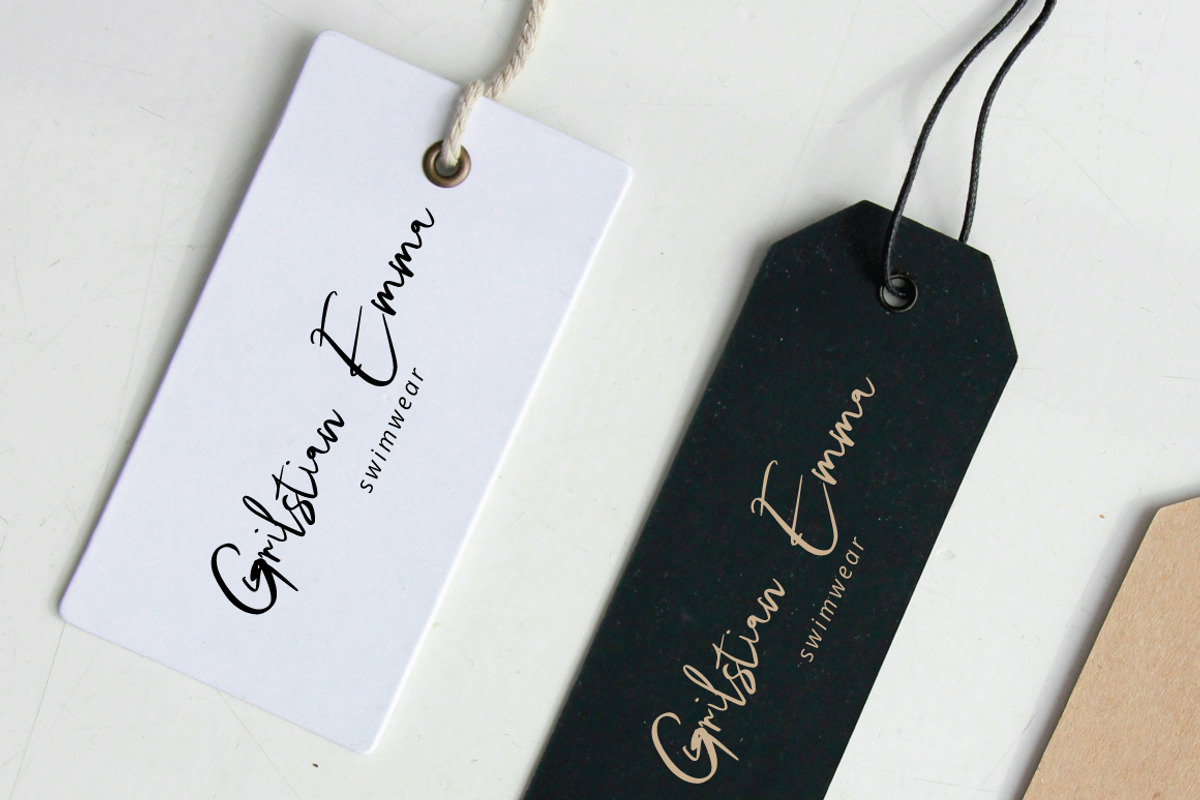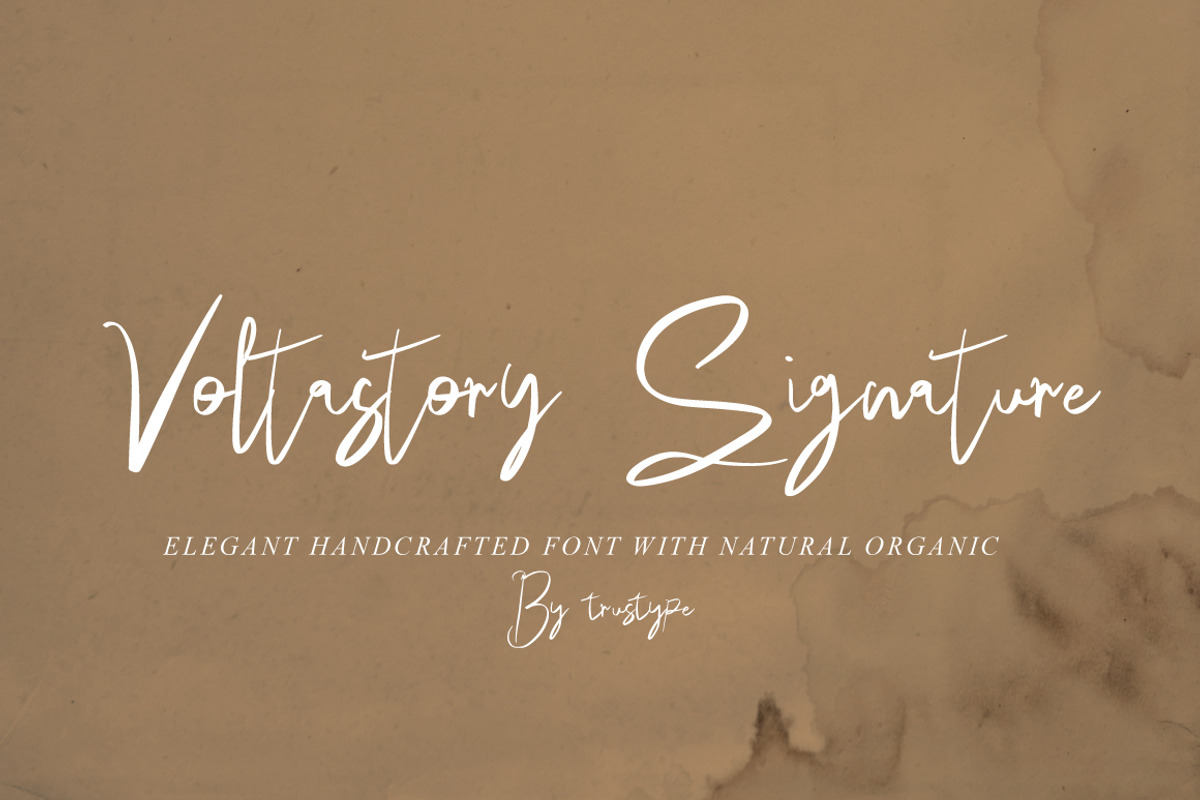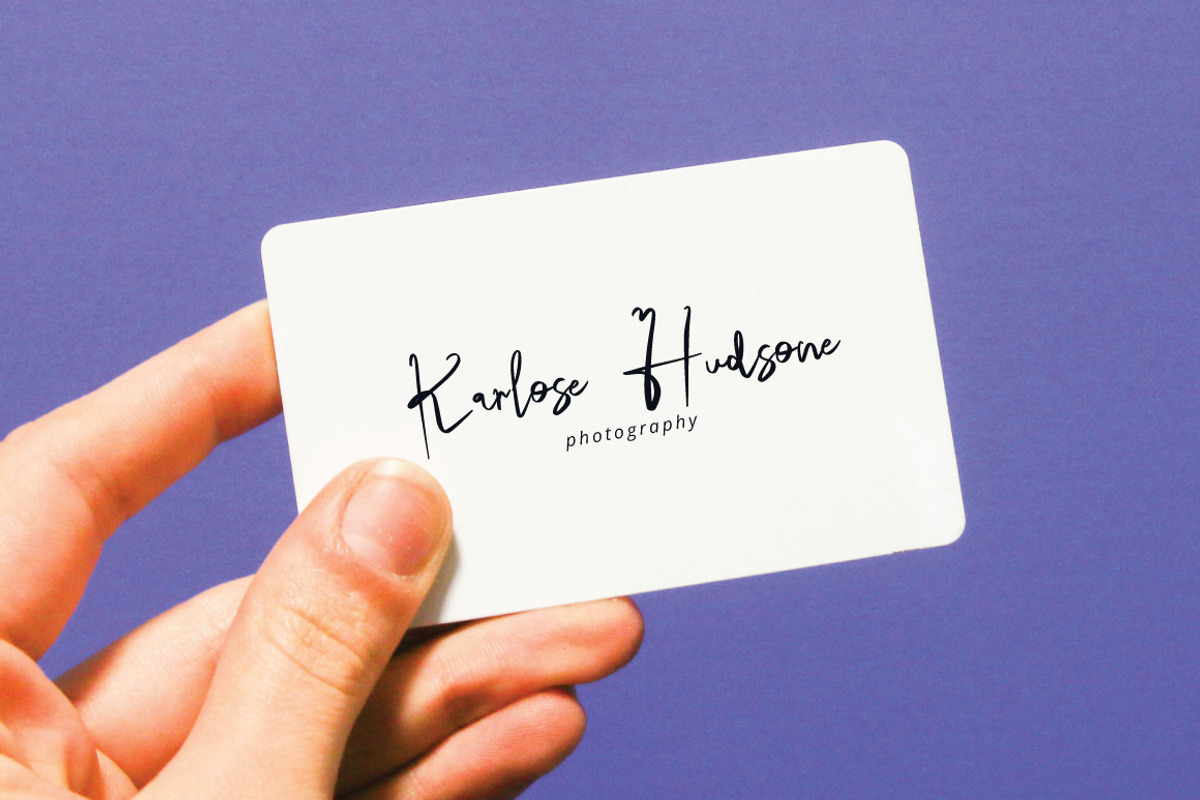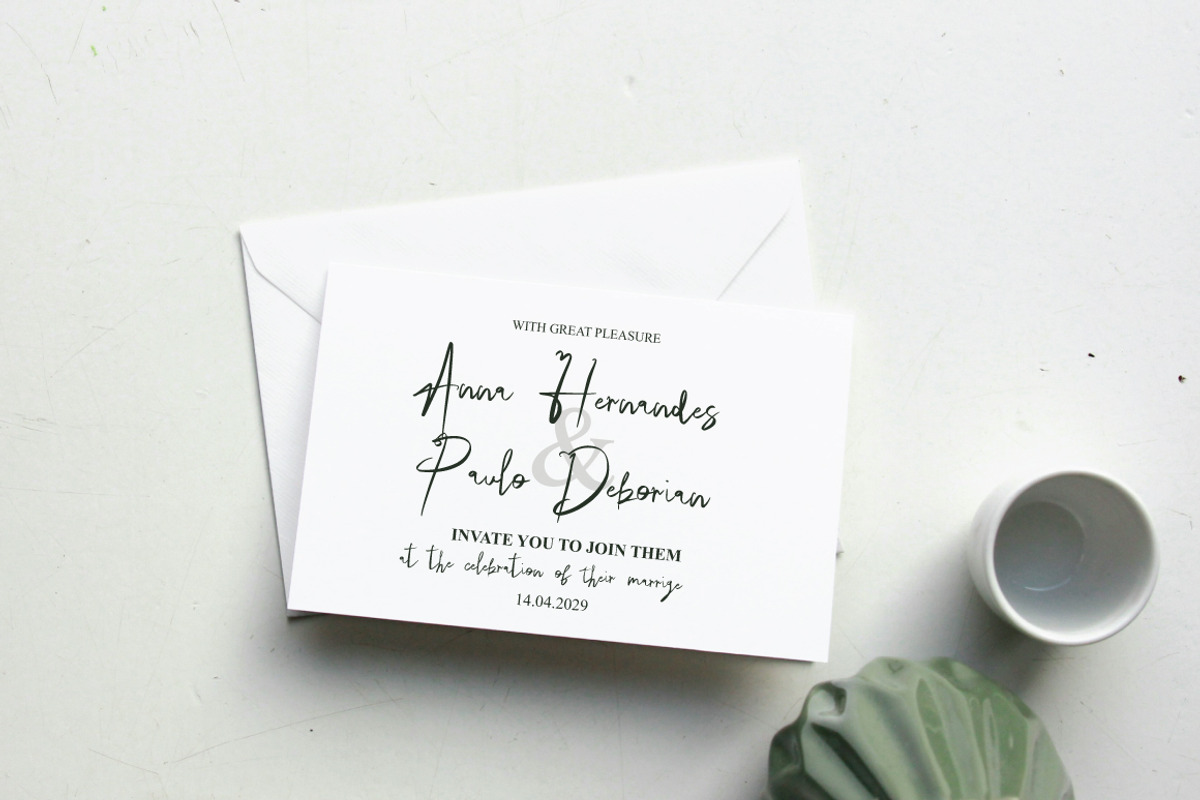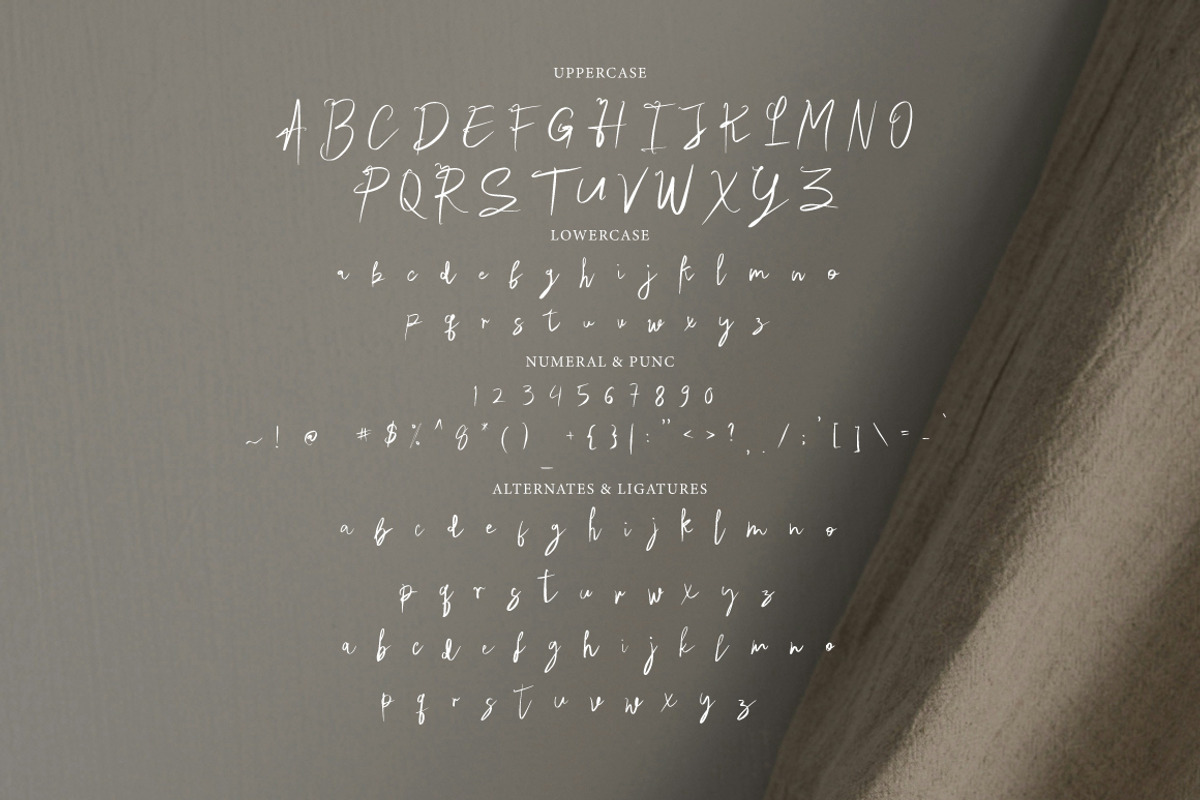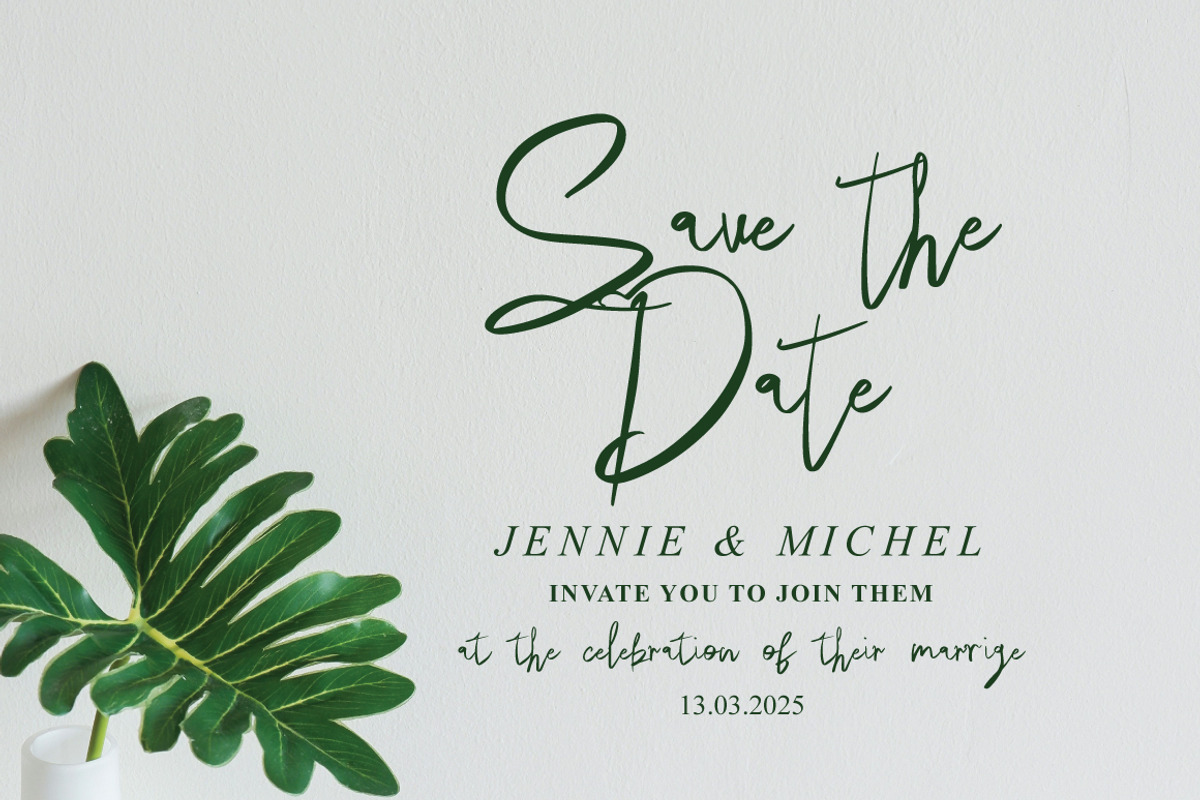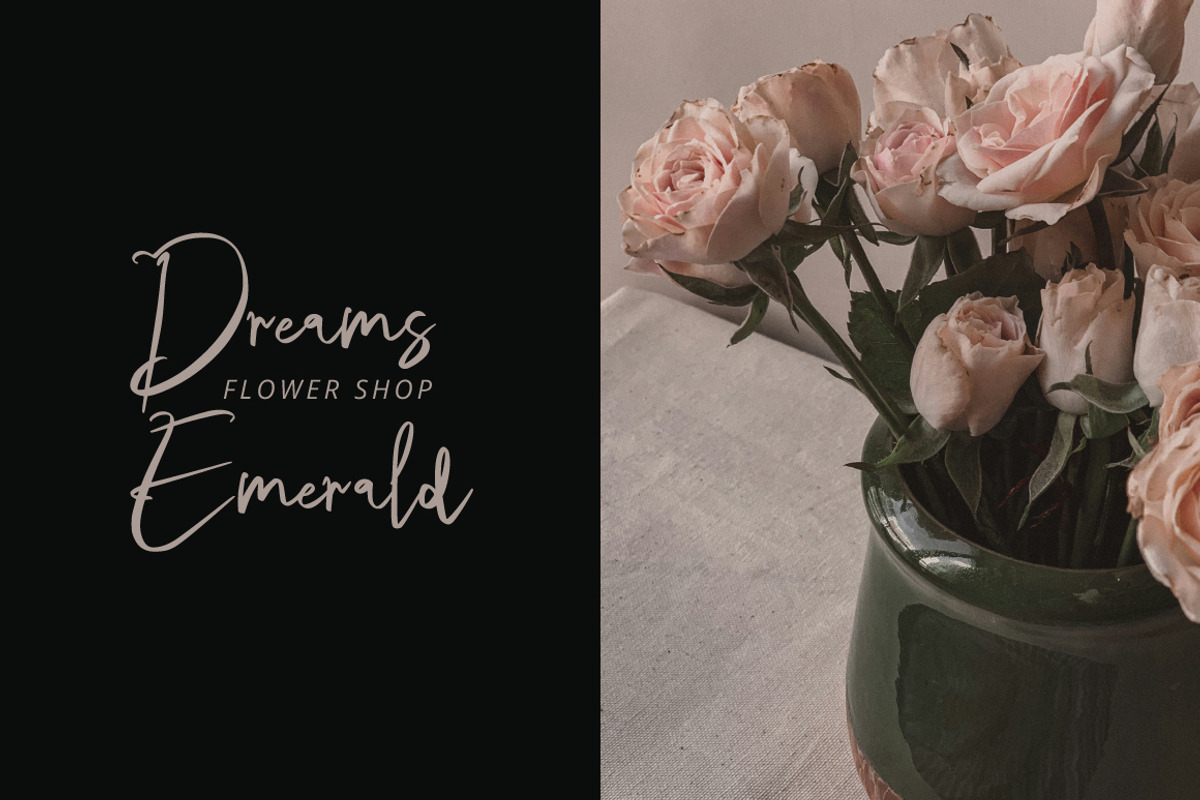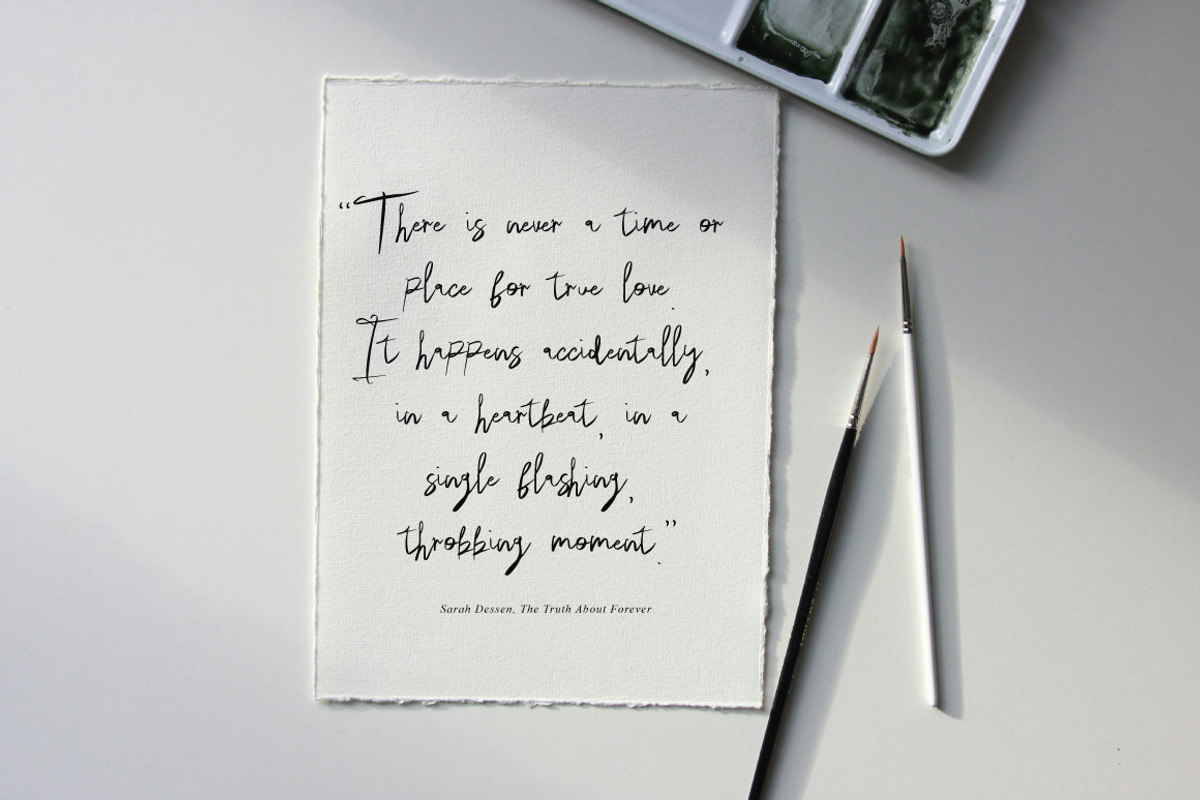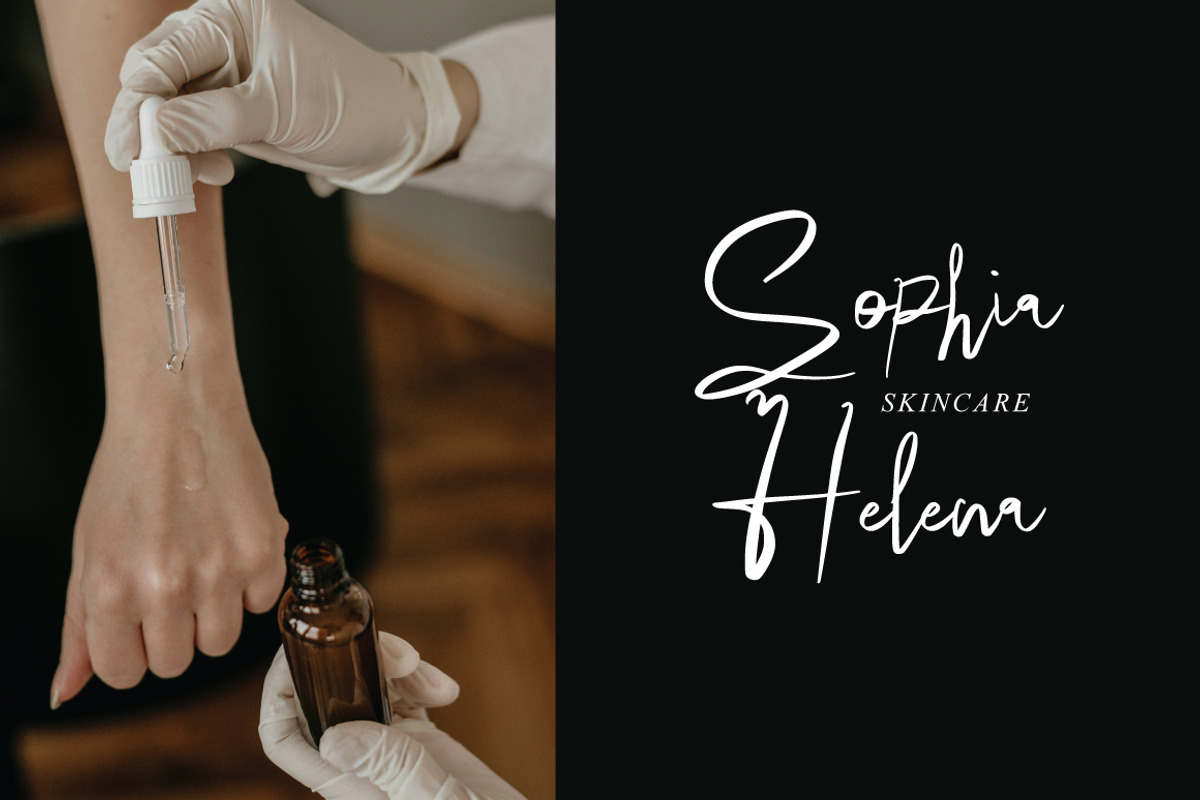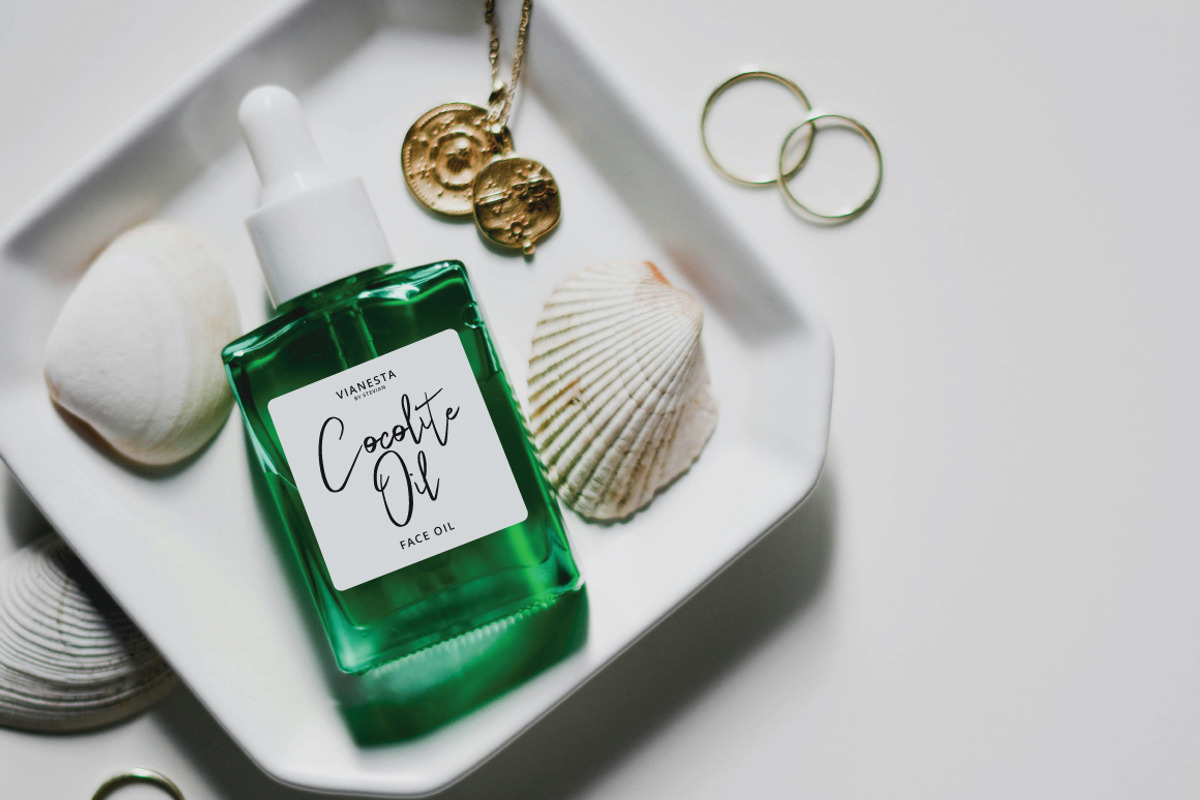
Voltastrory Signature
Voltastrory Signature with a natural organic, decorative characters and a dancing baseline!
Voltastrory Signature with 130+ glyphs. The alternative characters were divided into several Open Type features such as Swash, Stylistic Sets, Stylistic Alternates, and Ligature. The Open Type features can be accessed by using Open Type savvy programs such as Adobe Illustrator, Adobe InDesign, Adobe Photoshop Corel Draw X version, And Microsoft Word. And this Font has given PUA unicode (specially coded fonts). so that all the alternate characters can easily be accessed in full by a craftsman or designer.